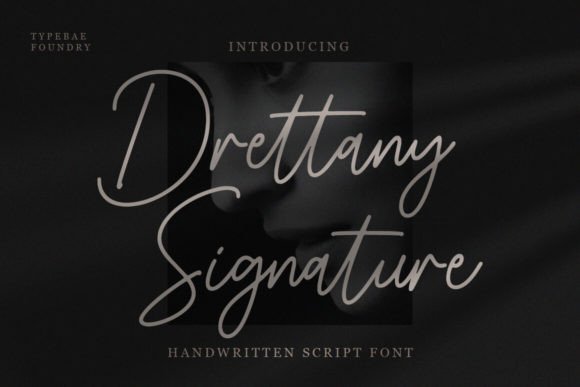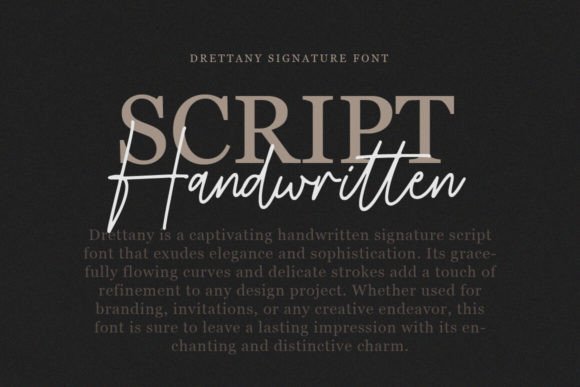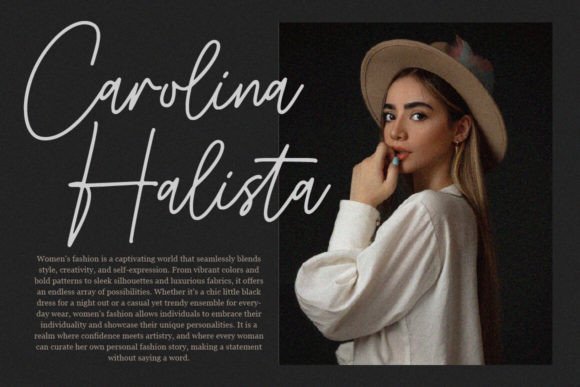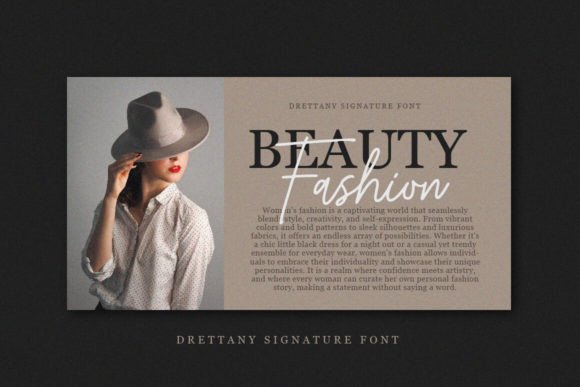
Drettany Signature Font
About the Drettany Signature Font
Meet Drettany Signature Font, a stunning font that brings a touch of elegance and professionalism to any design. Drettany Signature Font is a captivating handwritten signature script font that exudes elegance and sophistication. Its gracefully flowing curves and delicate strokes add a touch of refinement to any design project. Whether used for branding, invitations, or any creative endeavor, this font is sure to leave a lasting impression with its enchanting and distinctive charm.
Drettany Signature Font’s elegant, flowing forms are ideally suited for headlines, logos, short text blocks on invitations or packaging, and social media graphics where its refined character shines. Avoid using it for lengthy body text or UI elements; its delicate strokes can become difficult to read at smaller sizes.
Its sophisticated personality pairs well with clean sans-serif fonts like Montserrat or Open Sans for a balanced contrast, or a classic serif like Garamond for a more traditional feel. A geometric sans-serif such as Futura could provide a modern counterpoint, while a playful script could enhance its whimsical side, depending on the desired effect.
The overall mood of Drettany is sophisticated and elegant, lending itself to brands associated with luxury, fashion, beauty, or the arts. Its graceful curves communicate a sense of refinement and timeless appeal.
Drettany Signature Font Usage Examples
Drettany Signature Font Example